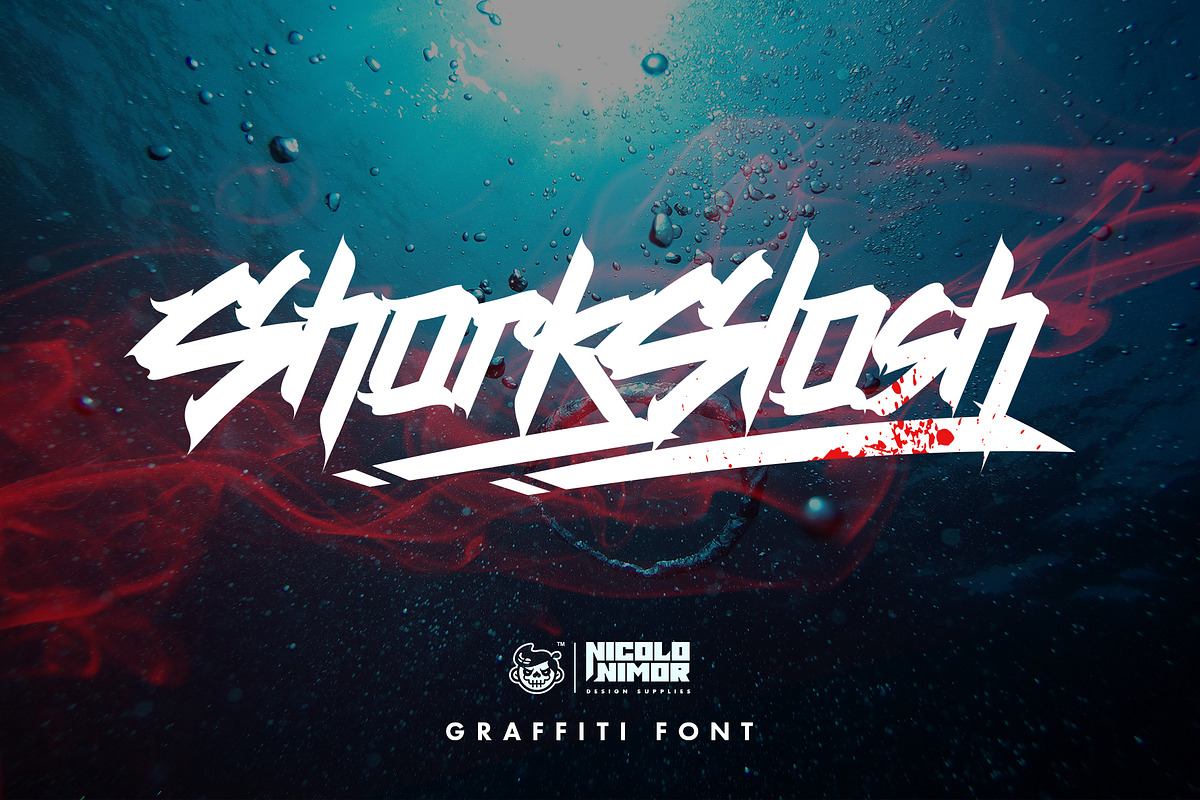
SHARKSLASH Graffiti Font Free Download
Raw, rebellious, and full of street-style attitude, SHARKSLASH Graffiti Font Free Download is a bold display typeface inspired by urban graffiti and skate culture. Perfect for album covers, apparel, streetwear branding, event posters, and edgy digital designs, SHARKSLASH captures the untamed energy of hand-tagged walls and underground vibes.
With sharp strokes, wild curves, and a slashed aesthetic, this font delivers high-impact visuals that scream individuality. It’s made for creatives who want their message to be loud, expressive, and dripping with personality.